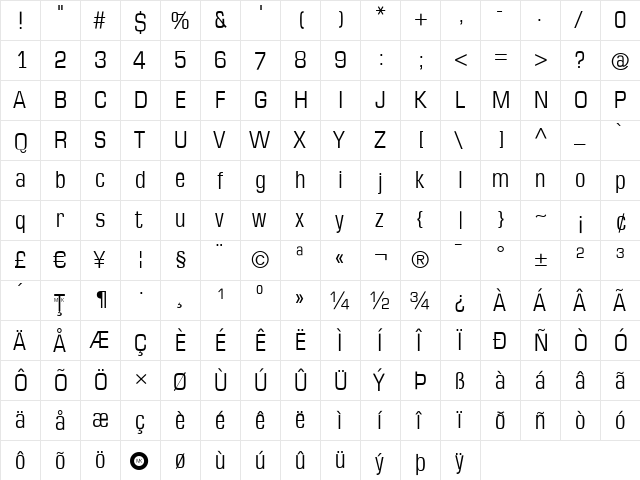
MKSansTallX Regular Font Preview
MKSansTallX Regular
Design Context for MKSansTallX Typeface
MKSansTallX is a composed and adaptable typeface that performs quietly and consistently across a wide range of design contexts.